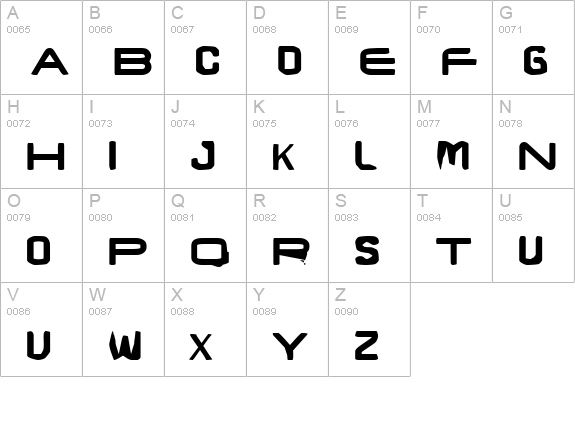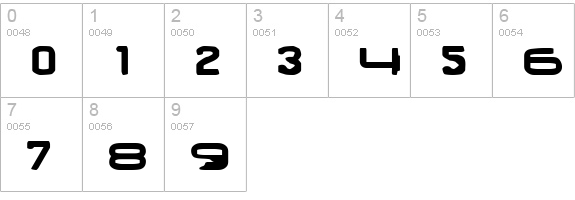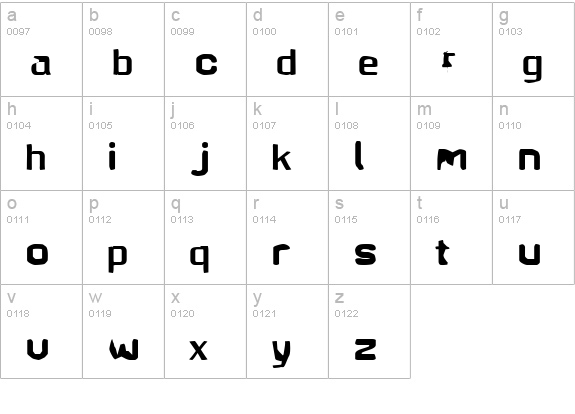
Brunst font is a modern and stylish typeface that exudes sophistication and elegance. With its clean lines and sleek design, this font is perfect for a wide range of design projects, from logos to branding materials to website headers. The versatility of Brunst font makes it a great choice for both print and digital applications. What makes Brunst font even more appealing is that it is available for free download at FontsMarket.com. Now you can elevate your designs with this premium font without having to spend a dime. Whether you're a graphic designer, a web developer, or a student looking to enhance your projects, Brunst font is a must-have in your font collection. Download it today and let your creativity shine with this stunning typeface.